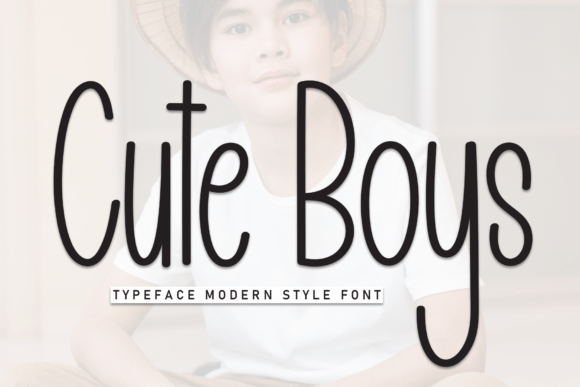
Discover the Perfect Blend of Sweetness and Style: Cute Boys Font
Have you ever found yourself staring at a blank piece of paper, trying to come up with the perfect way to express your creativity? It’s that moment when the words just won’t flow, and you need something to spark your imagination. For many designers, it’s in those moments that we turn to typography to set the tone for our next big project.
That’s where Cute Boys Font comes in – a sweet and friendly handwritten font that’s sure to add a touch of fun to any design. Whether you’re crafting wedding invitations, designing cards, or working on a creative project that needs a playful twist, Cute Boys Font is the perfect addition to your toolkit. With its cute and friendly demeanor, this font is a valuable asset for designers looking to add a personal touch to their work.
Cute Boys Font Key Features
- Font Family: Cute Boys is a sans-serif font family designed to resemble a playful, youthful aesthetic.
- Unique Characteristics: Cute Boys font features rounded edges, subtle curves, and a friendly tone, making it perfect for designing materials targeting a young audience, such as children’s books, educational materials, and marketing campaigns.
Cute Boys Font Review
At first glance, the Cute Boys Font seems like a great option for designers looking to add a touch of whimsy to their projects. ✨ The font’s playful, handwritten feel is sure to capture the attention of anyone who sees it.
- Pros:
- ✨ Unique and eye-catching design
- ✨ Perfect for adding a touch of personality to digital projects
- ✨ Works well for titles, headings, and other display text
- Cons:
- ⚠️ Limited legibility in smaller font sizes
- ⚠️ Can be difficult to read for those with vision impairments
- ⚠️ May not be suitable for large blocks of text
Overall, I think the Cute Boys Font is a great choice for designers who want to add a touch of fun and personality to their projects. However, it’s not without its limitations. If you’re looking for a font that’s easy to read and versatile, you may want to consider other options. But if you’re looking to add a unique touch to your design, the Cute Boys Font is definitely worth a look.
Getting the Most Out of Cute Boys Font
For the best results, use Cute Boys Font in combination with bold, playful graphics and bright colors.
Experiment with different font sizes and styles to add visual interest to your design.
Use Cute Boys Font for headings, titles, and other text elements that require a playful, whimsical touch.
Cute Boys Font is ideal for:
Children’s book illustrations and designs
Party invitations and decorations
Playful social media graphics and ads
Whimsical product packaging and branding
Alternatives to Cute Boys Font
Great Vibes is a beautiful script font that resembles handwritten text. It’s ideal for creating a friendly, approachable atmosphere in designs that require a touch of elegance and sophistication. Great Vibes is more versatile than Cute Boys Font, as it can be used in a variety of contexts, from invitations to branding.
Comparison to Cute Boys Font: Great Vibes is more refined and sophisticated, making it suitable for a wider range of applications. While Cute Boys Font is more playful, Great Vibes is more elegant.
Pacifico is a modern script font that evokes the feeling of a tropical paradise. It’s perfect for designs that need a touch of whimsy and relaxation. Pacifico is more laid-back than Cute Boys Font, making it ideal for projects that require a carefree atmosphere.